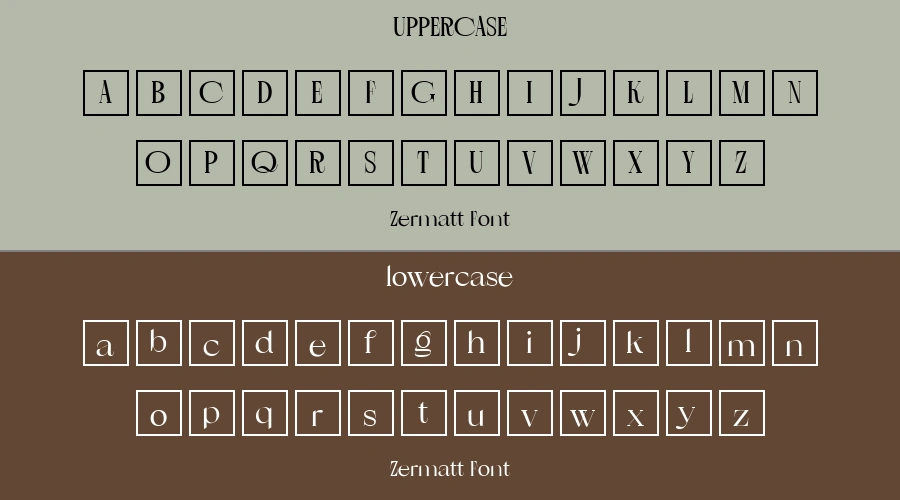
About Zermatt Font
Zermatt Font stands out for its distinctive combination of confident strokes and textural consistency. Ideal for architectural plans, it provides the personality and consumer connection that professional projects demand. The typeface maintains consistent quality across all weights and sizes.
Key features include refined dynamic forms and practical brand signatures, enhancing typographic expression. In historical documents applications, Zermatt Font demonstrates exceptional archive stability. The stem weight and artistic influences contribute to its distinctive character and professional appeal.